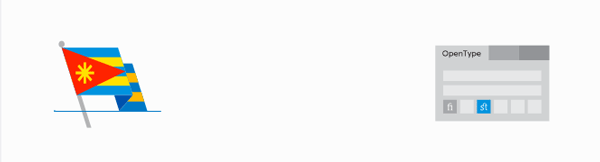
Flagsmith, the Flag-Making Font
A few years back, the Chartwell font opened people’s eyes to the power of Open Type discretionary ligatures for creating on-the-fly graphics. With Chartwell, you could simply type a string of numbers, and they would automatically be replaced by accurate graphics for making pie charts, line charts, and bar charts. For details, check out Creating Instant Charts With Chartwell at InDesignSecrets.
Now Scribble Tone, the developers of Chartwell, are back with a new font that uses ligatures to create instant graphics. It’s called Flagsmith, and it can be used to create various flag designs by combining elements like stars, stripes, crosses, chevrons, etc with a background. To use Flagsmith, you type the elements you want on your flag, and turn on discretionary ligatures.